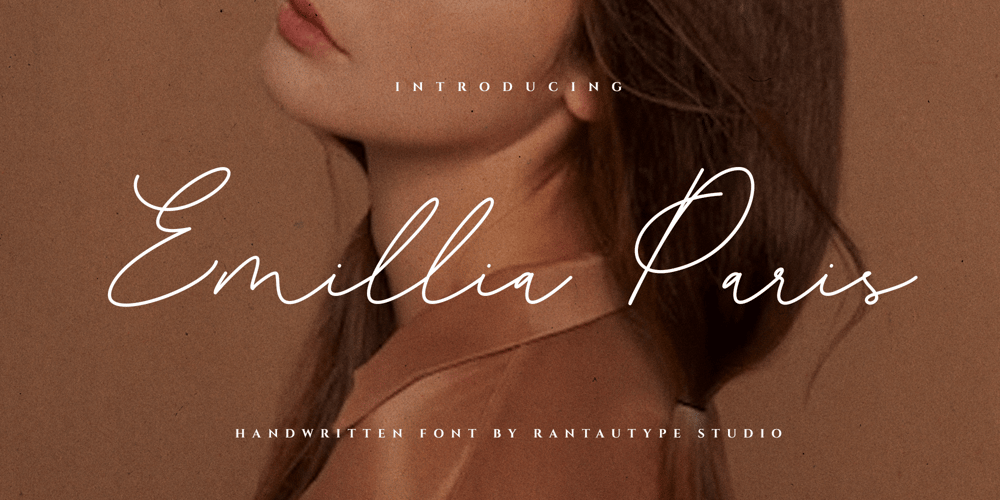
Emillia Paris Font Family was designed by Yudi Pratama Chandra and published by RantauType. Emillia Paris contains 1 styles and family package options. Emillia Paris – modern style font which can be interpreted professional. we keep this font looks modern, minimalist, elegant, readable, stylish, catchy and easy to use. Emillia Paris – is the great choice for watermark on photography, branding, wedding event, signature or signature logo design, quotes, album cover, magazine, business card and many other design project. Emillia Paris here to make your work to high level!!!Features Standar character A-Z and a-z Numberial and Functional Ligature and Alternate Works on PC & Mac Simple installations Accessible in Adobe Illustrator, Adobe Photoshop, Adobe InDesign, even work on Microsoft Word. Fonts include Multilingual Support for: Afrikaans, Albanian, Asu, Basque, Bemba, Bena, Breton, Chiga, Cornish, Dutch, English, Estonian, Filipino, Finnish, Friulian, Galician, Gusii, Indonesian, Irish, Italian, Kabuverdianu, Kalenjin, Kinyarwanda, Luo, Luxembourgish, Luyia, Machame, Makhuwa-Meetto, Makonde, Malagasy, Manx, Morisyen, North, Ndebele, Nyankole, Oromo, Portuguese, Quechua, Romansh, Rombo, Rundi, Rwa, Samburu, Sango, Sangu, Scottish, Gaelic, Sena, Shambala, Shona, Soga, Somali, Spanish, Swahili, Swedish, Swiss, German.Thank you for your purchase!Hope you enjoy with our font!